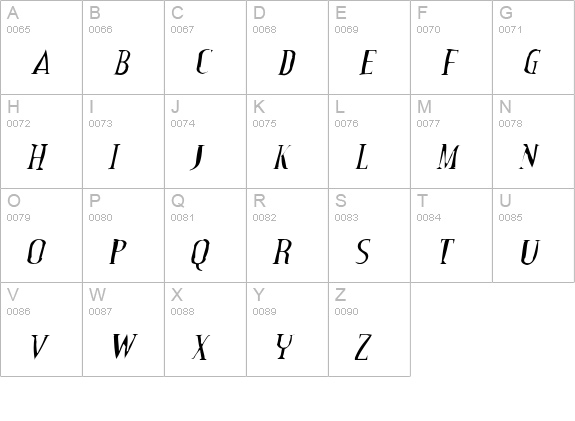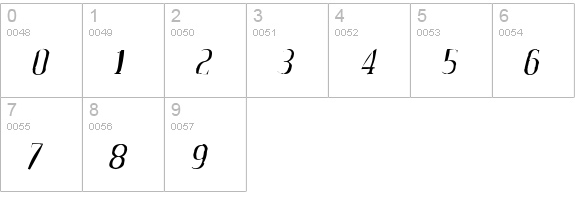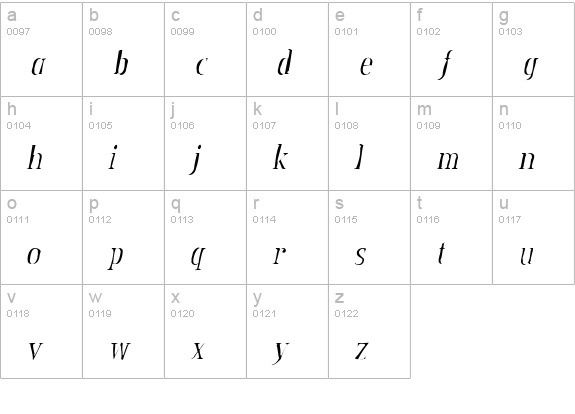
Credit Valley Gaunt Italic is a distinctive, italic variant in the Credit typeface family \xE2\x80\x94 well suited to design and typography projects.
Credit Valley Gaunt Italic is a stunning and elegant font that exudes sophistication and style. Its sleek and flowing design makes it perfect for adding a touch of class to any project. The italicized style adds a sense of movement and flair, making it ideal for use in headings, quotes, and other prominent text. What sets Credit Valley Gaunt Italic apart is not just its visual appeal, but also its accessibility. This font is available for free download at FontsMarket.com, allowing designers and creators to easily incorporate it into their work without any cost. Whether you're working on a website, a poster, a logo, or any other design project, Credit Valley Gaunt Italic is a versatile and reliable choice that will elevate your work to the next level. Download it today and see the difference it can make in your designs.